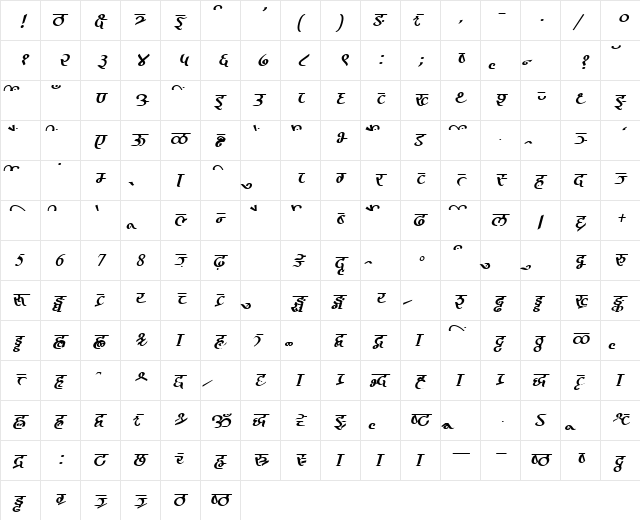
AkrutiDevPooja NormalItalic
Design Context for AkrutiDevPooja Typeface
AkrutiDevPooja takes a measured approach to typography — its balanced proportions and neutral character make it a reliable workhorse for both digital and print work. The slanted form adds forward momentum and visual energy.
Pro Tip: Use AkrutiDevPooja for emphasis, pull quotes, and subheadings where its slanted energy can add rhythm to the layout.